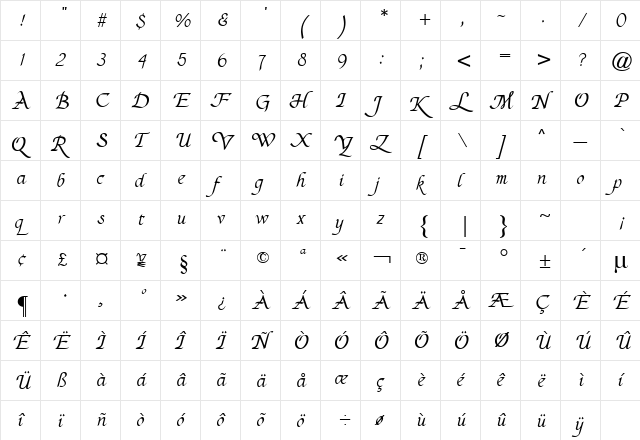
CgBasilica Regular
Design Context for CgBasilica Typeface
CgBasilica is a composed and adaptable typeface that performs quietly and consistently across a wide range of design contexts.